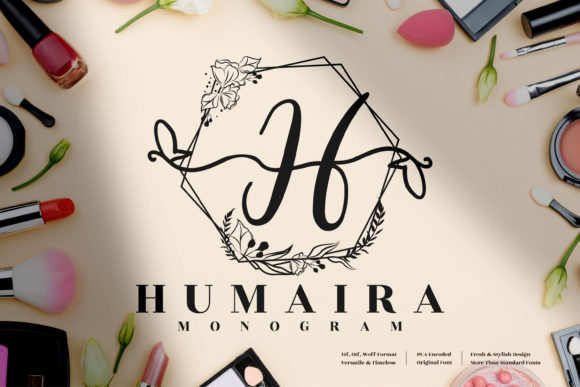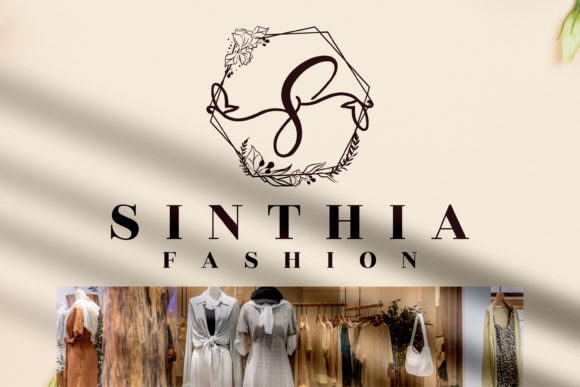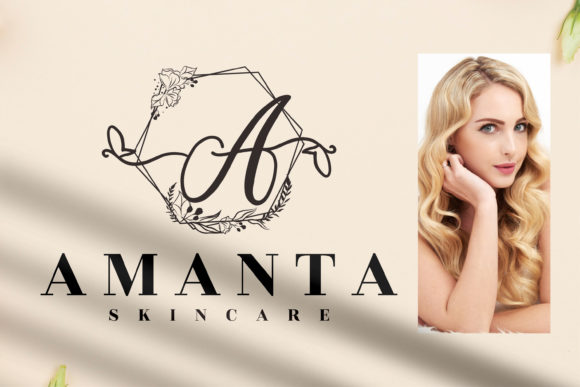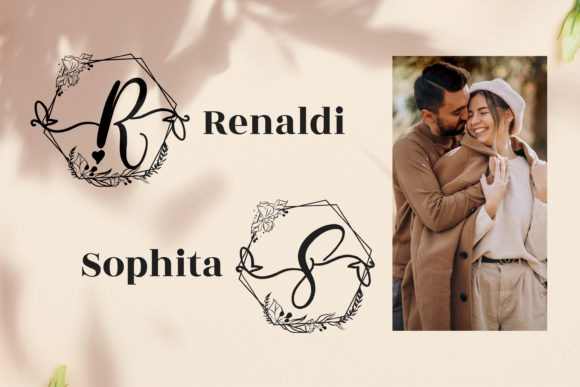
Humaira Monogram Font
About the Humaira Monogram Font
The Humaira Monogram Font offers a perfect balance of form and function for your design needs. Humaira Monogram is an elegant decorative font, featuring luxury leaf ornaments. Fall in love with its authentic feel and use it to create gorgeous wedding invitations, beautiful stationary art, eye-catching social media posts, logo design, and cute greeting cards.
Humaira Monogram’s elegant, decorative style is ideally suited for projects requiring a touch of luxury and sophistication. It excels in headlines, logos, short text blocks on invitations or packaging, and social media graphics where its ornate details can be appreciated. Avoid using it for body text or extended paragraphs; its decorative nature makes it less legible for large amounts of content. It also isn’t suitable for UI elements where clarity and readability are paramount.
The font’s personality is distinctly refined and romantic. Brands focused on weddings, high-end fashion, beauty, or artisanal products would find it particularly fitting.
Pairing Humaira Monogram with a clean sans-serif like Lato or Montserrat for body text creates a balanced contrast. For a more traditional feel, consider pairing it with a classic serif font such as Garamond or Playfair Display. These pairings provide readability and visual balance, allowing the Humaira Monogram’s decorative elements to shine.
Humaira Monogram Font Usage Examples
Humaira Monogram Font Example